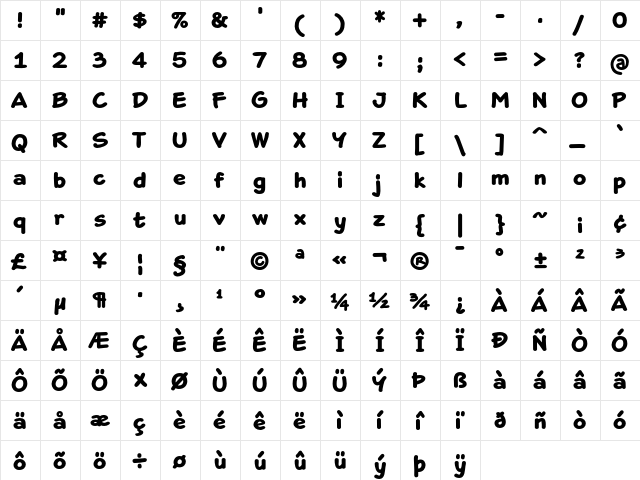
DraftsmanCasual6B Regular
Design Context for DraftsmanCasual6B Typeface
DraftsmanCasual6B is a composed and adaptable typeface that performs quietly and consistently across a wide range of design contexts.